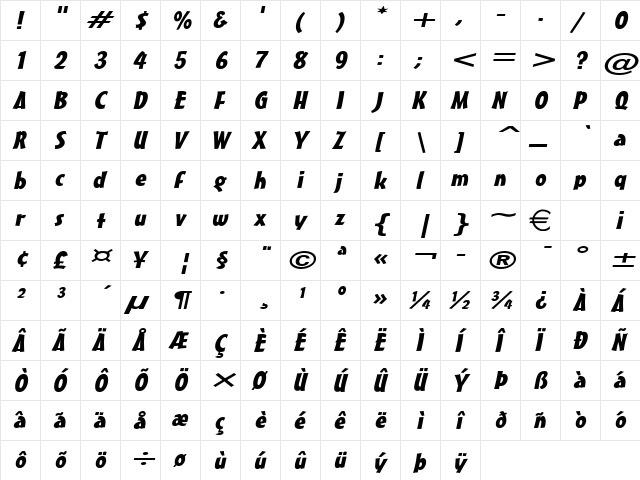
MasseyExtended Italic
Design Context for MasseyExtended Typeface
MasseyExtended offers clean, dependable letterforms without strong stylistic allegiance, making it a practical choice for designers who need flexibility. Its italic angle brings a sense of urgency and motion to the letterforms.
Pro Tip: Try MasseyExtended for annotation and caption copy alongside an upright companion — the contrast in angle creates a dynamic but ordered typographic system.